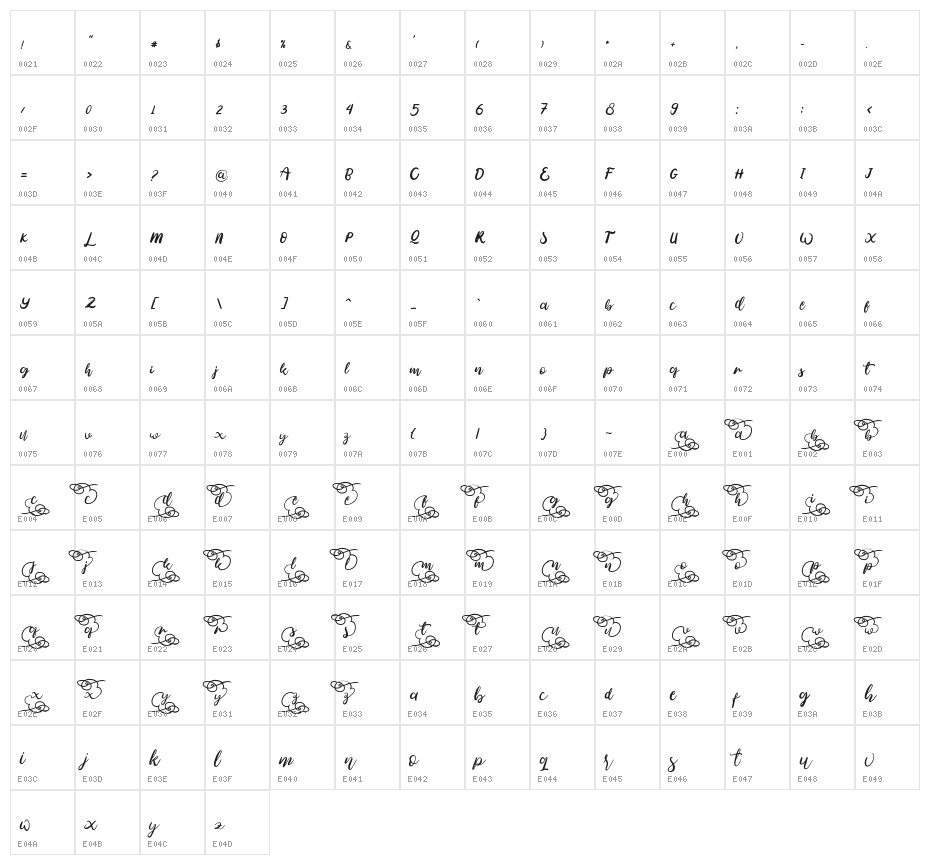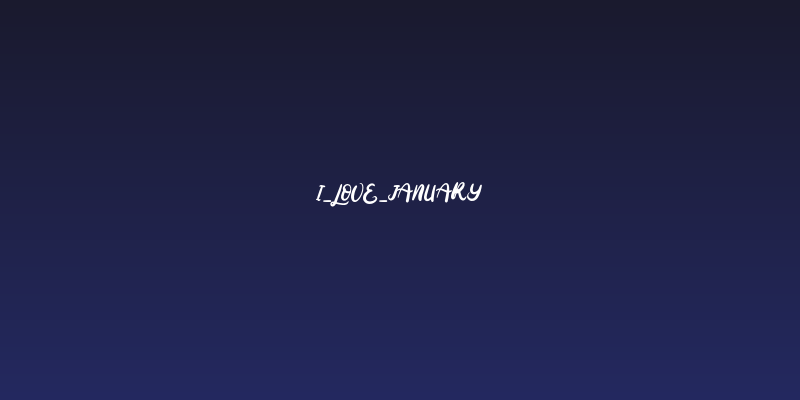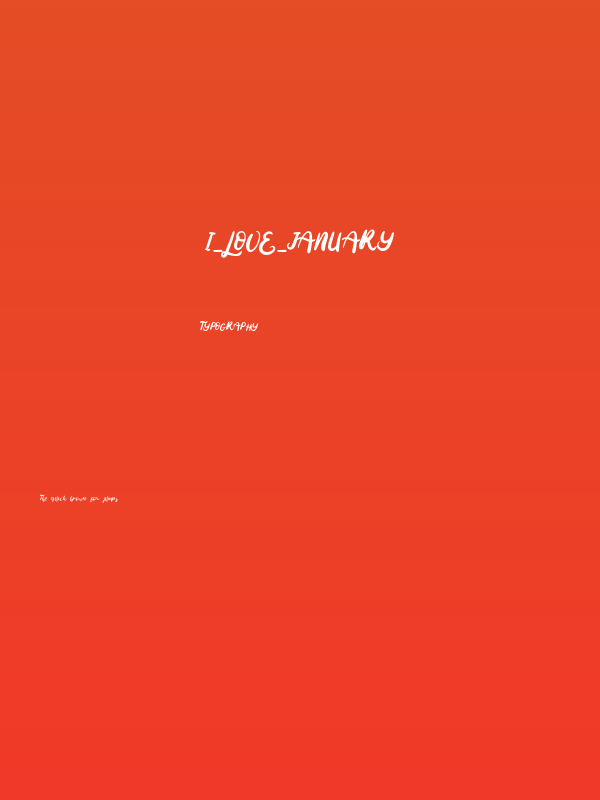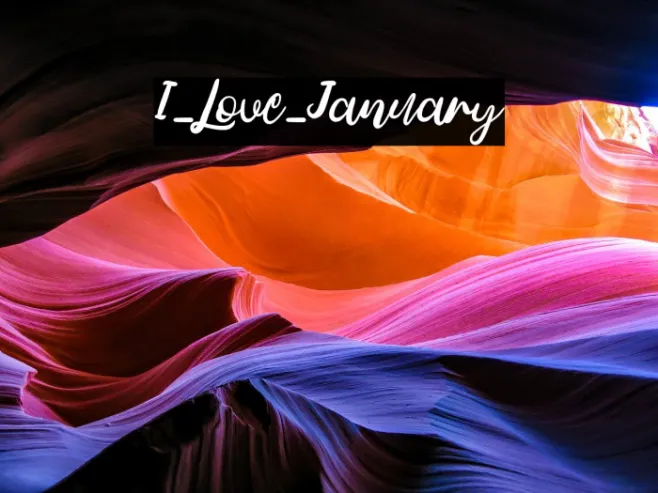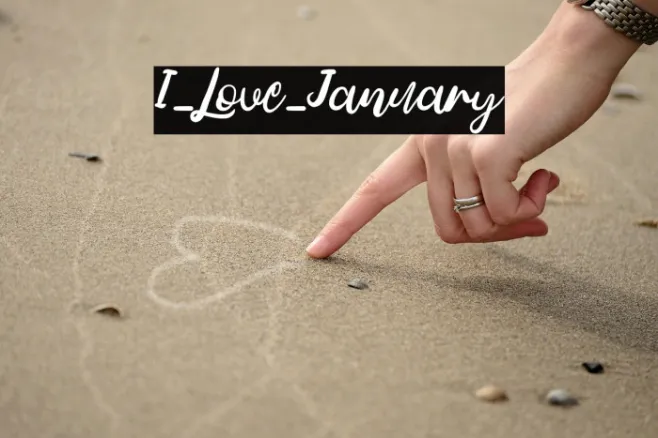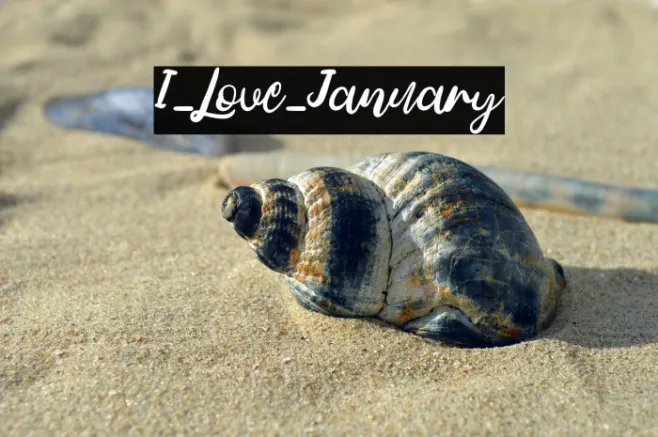
I_Love_January Font
I_Love_January Description
This font features a flowing, cursive style that exudes elegance and sophistication. The letters are interconnected with smooth, sweeping strokes, creating a sense of fluidity and movement. The uppercase letters are bold and prominent, while the lowercase letters maintain a consistent, graceful form. The numerals are distinct and easy to read, complementing the overall aesthetic. Special characters are designed with the same attention to detail, ensuring a cohesive look across all elements. This font is perfect for projects that require a touch of class and refinement.
| Proposed Projects | Ideal for wedding invitations, branding, greeting cards, and elegant logos. |